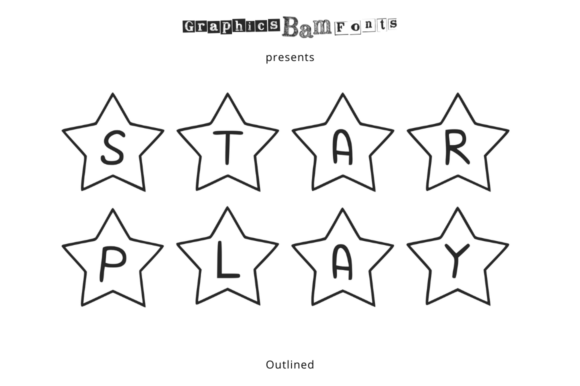
Star Play Outlined: A Festive and Versatile Decorative Font
Star Play Outlined is a distinctive decorative font that brings a sense of whimsy and festivity to any design project. Its unique character makes it a popular choice for creative professionals and hobbyists alike. Whether you're working on cartoon-related designs, children's games, or any project that benefits from a charming aesthetic, Star Play Outlined offers a visually appealing option that can elevate your work.
This font is part of a larger family, which means users can explore related styles such as the regular version. This flexibility allows designers to maintain visual consistency across different elements of a project while still enjoying the stylistic benefits of the outlined variant.
Why Consider Star Play Outlined?
For those seeking a font that adds a playful or festive touch, Star Play Outlined may be an ideal choice. Its outlined style gives it a light, airy feel that stands out in both digital and print formats. This characteristic makes it particularly well-suited for projects that aim to evoke a sense of joy or nostalgia.
Designers who work with children’s content, such as educational materials, illustrations, or game interfaces, often find that this font enhances the overall appeal of their work. The stylized stars and soft edges contribute to a friendly and approachable look that resonates with younger audiences.
Benefits and Considerations
One of the primary advantages of Star Play Outlined is its ability to add visual interest without overwhelming the design. Its outlined structure allows for good readability, especially when used in moderate sizes. This makes it suitable for headings, titles, and other prominent text elements where clarity is important.
However, it’s important to note that the font’s decorative nature may not be appropriate for all contexts. In professional or formal settings, more traditional typefaces might be preferable. Additionally, while the outlined style is visually engaging, it may require careful spacing and sizing to ensure optimal legibility, especially in smaller point sizes.
Situations Where It Fits Well
Star Play Outlined excels in projects that prioritize creativity and a lighthearted tone. For example, it could be used in branding for children's products, event invitations with a party theme, or digital illustrations that require a whimsical flair. Its versatility also makes it a good fit for social media graphics, where eye-catching visuals are essential.
When designing for platforms like Instagram or Pinterest, where visual appeal plays a significant role, this font can help create a cohesive and engaging aesthetic. It’s also useful in marketing materials aimed at families or young audiences, where a fun and inviting look is desired.
When Alternatives Might Be Better
While Star Play Outlined has many strengths, there are scenarios where alternative fonts may be more appropriate. For instance, if the goal is to convey professionalism or authority, a sans-serif or serif font might be a better choice. These fonts tend to offer a more refined and structured appearance, which is often preferred in business or academic contexts.
Additionally, for projects requiring high levels of readability, such as long-form text or technical documentation, a simpler and more straightforward font would likely be more effective. In these cases, the decorative elements of Star Play Outlined could detract from the overall clarity and usability of the design.
Practical Decision-Making Insights
When evaluating whether to use Star Play Outlined, consider the purpose of the project and the intended audience. Ask yourself whether the font’s aesthetic aligns with the message you want to communicate. If the goal is to create a fun, engaging, or nostalgic atmosphere, then this font could be a strong contender.
It’s also beneficial to test the font in different contexts before making a final decision. Experimenting with various sizes, colors, and backgrounds can help determine how well it performs in real-world applications. This process can reveal potential issues or opportunities for enhancement that might not be immediately apparent.
Finally, remember that typography is just one element of a broader design strategy. While Star Play Outlined can contribute significantly to the visual appeal of a project, it should be considered alongside other design choices such as color schemes, layout, and imagery to ensure a cohesive and effective outcome.